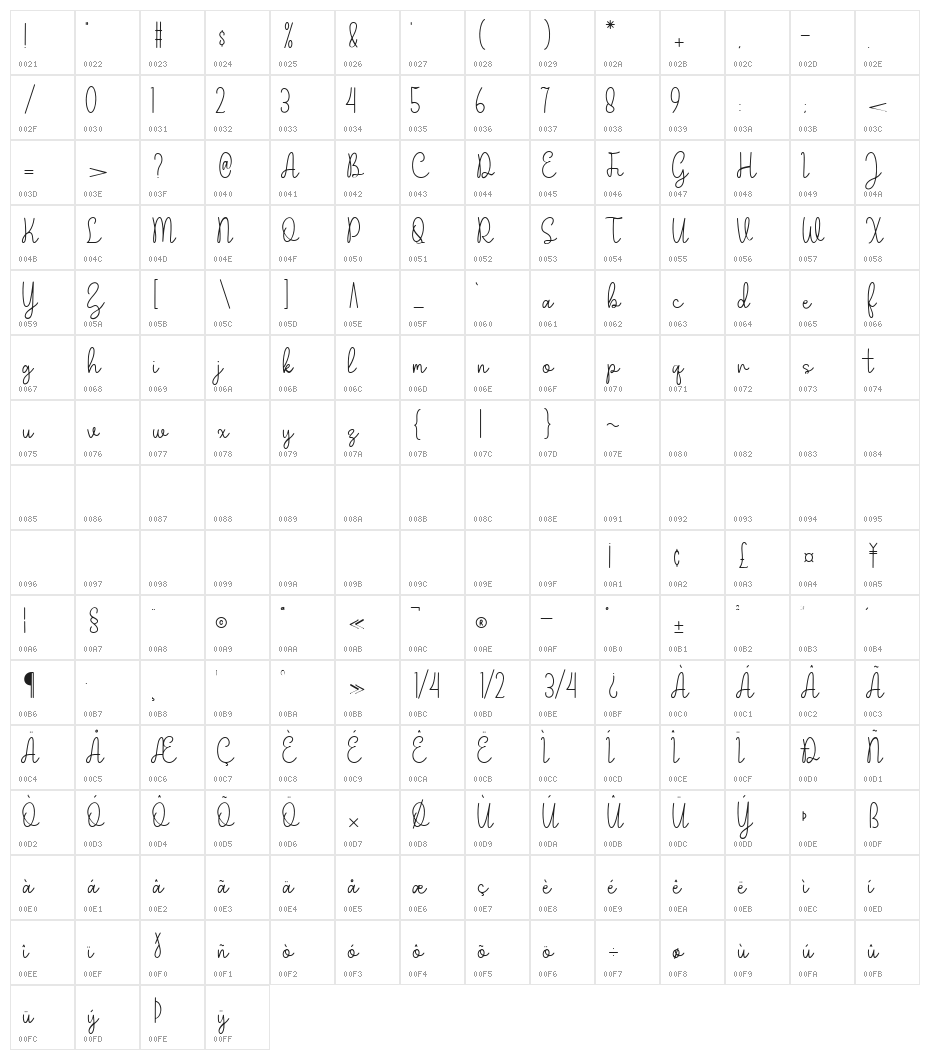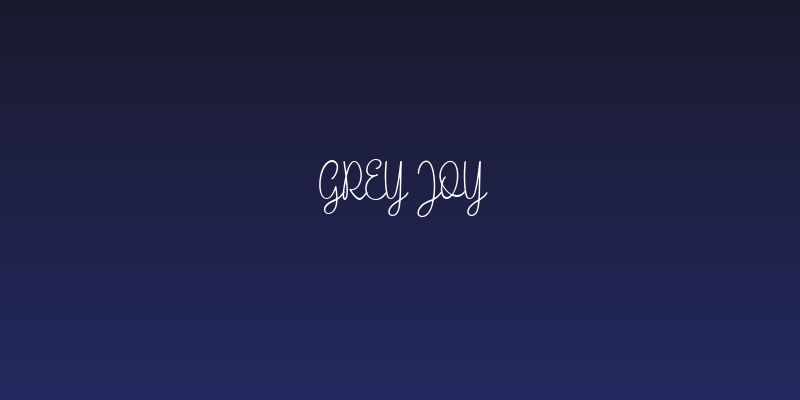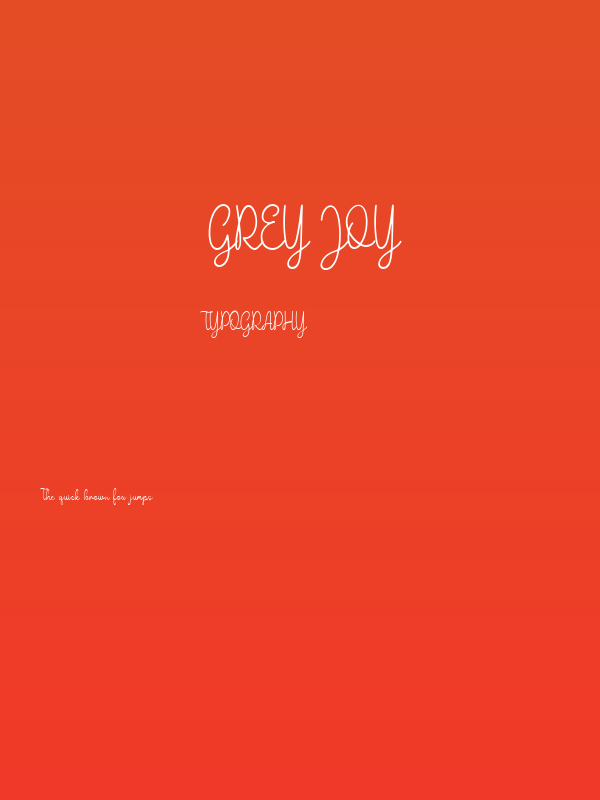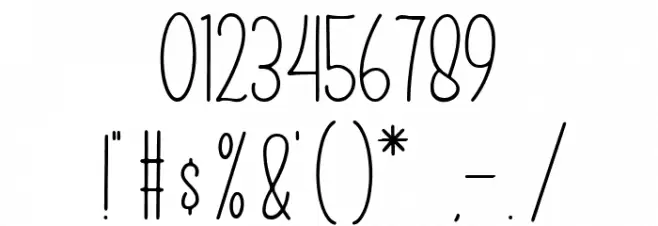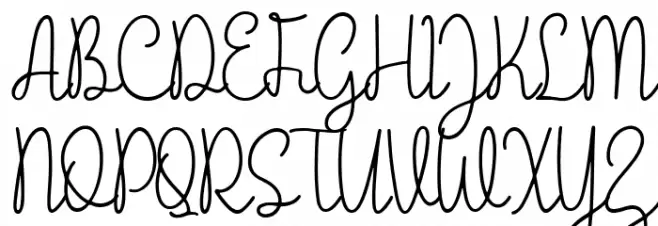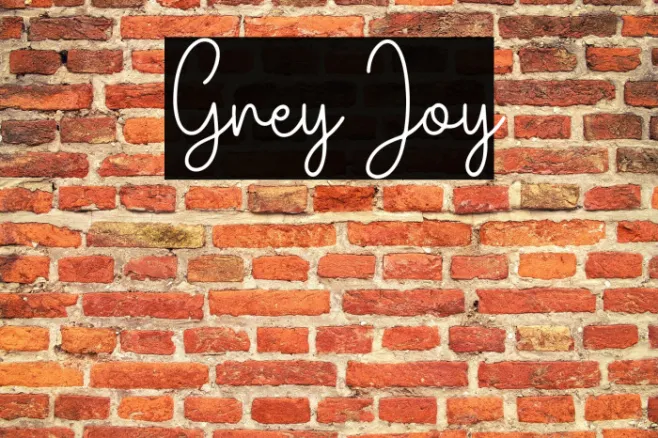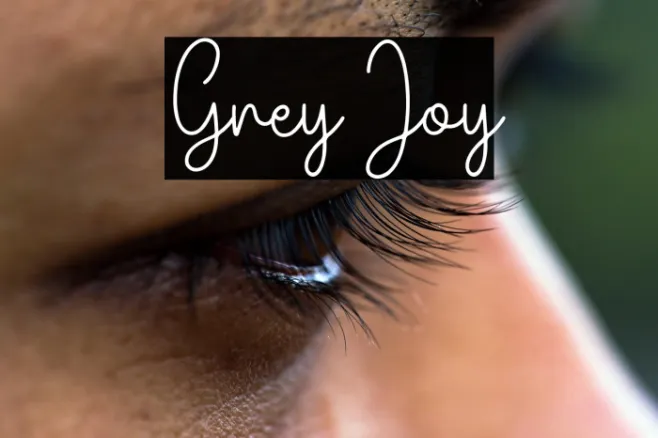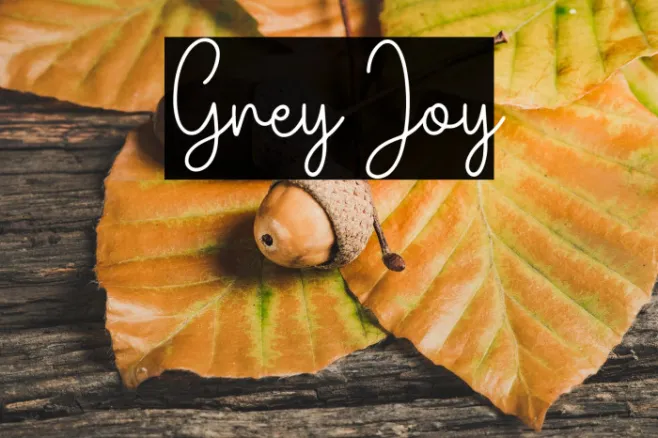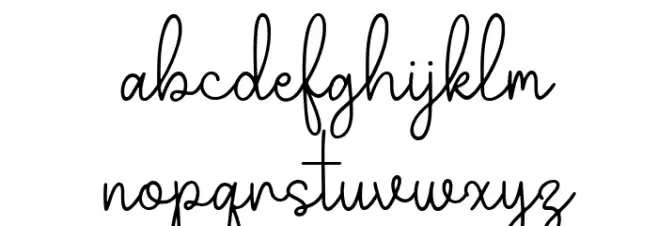
Grey Joy Font
Grey Joy Description
A playful, handwritten script font with a casual and flowing style, featuring connected letters and a friendly appearance.
| Overall Style | Casual |
| Use Case | Logos, Invitations, Greeting cards |
| Proposed Projects | Greeting cards, invitations, personal branding. |